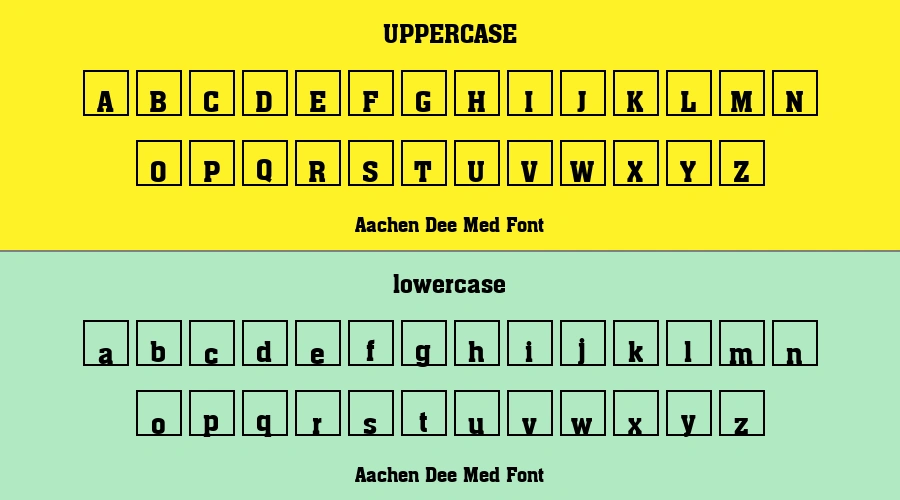
About Aachen Dee Med Font
Aachen Dee Med Font stands out for its distinctive combination of elegant spacing and consistency. Ideal for magazine layout, it provides the durability and cultural relevance that professional projects demand. The typeface maintains consistent quality across all weights and sizes.
Key features include refined sharp terminals and practical decorative sets, enhancing typographic expression. In digital platforms applications, Aachen Dee Med Font demonstrates exceptional OCR compatibility. The descender depth and engineering heritage contribute to its distinctive character and professional appeal.